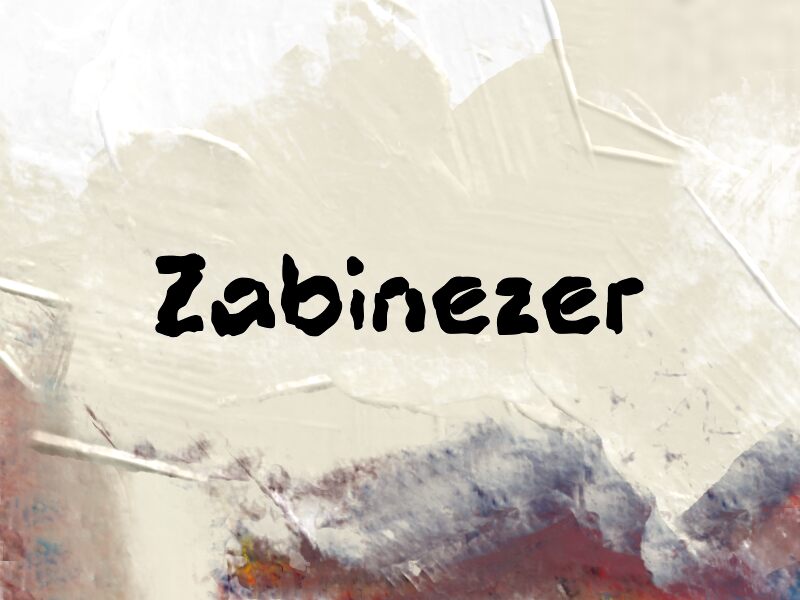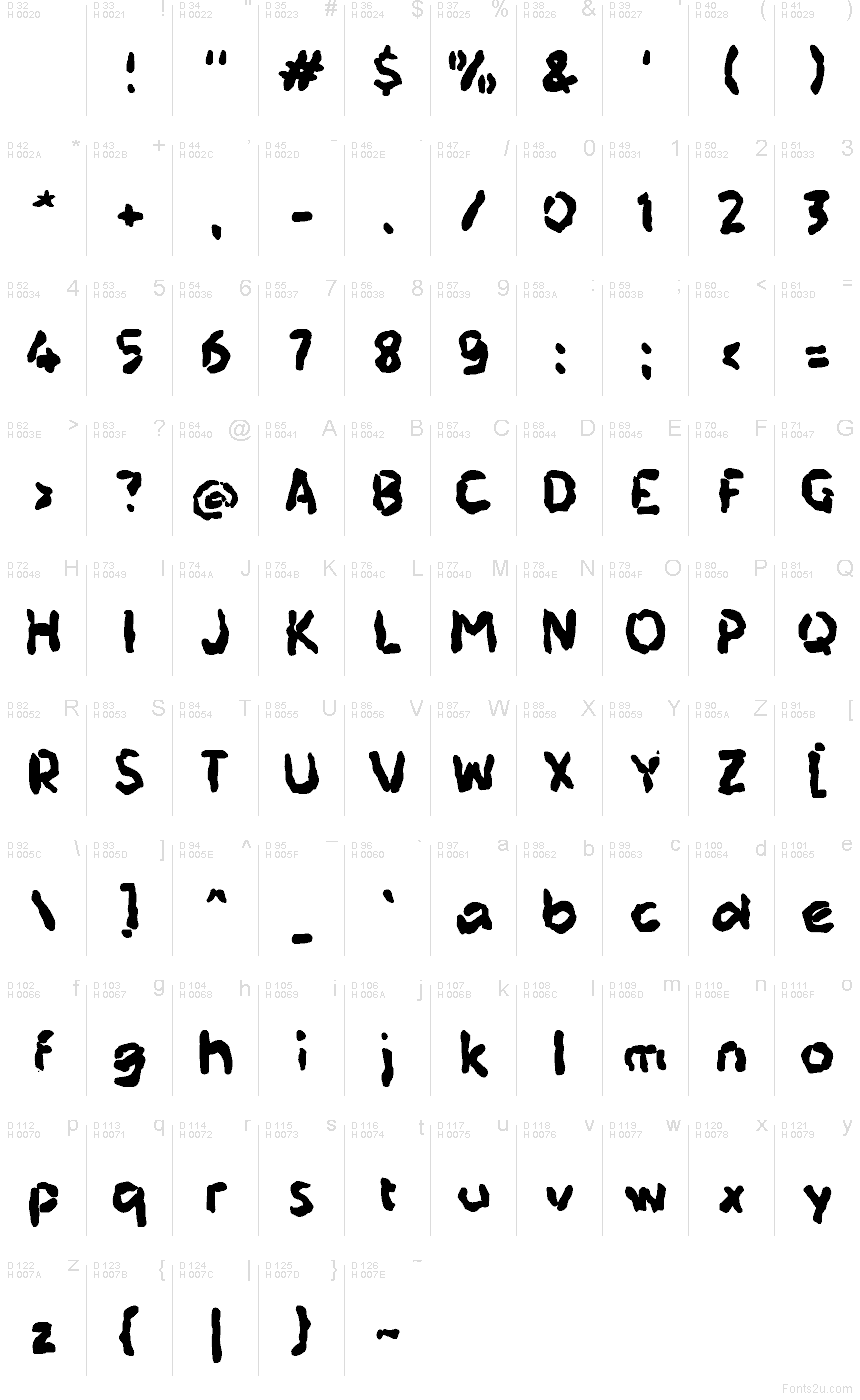
Zabinezer
Zabinezer font by wepfont.com is a free display typeface that looks like it’s been painted in thick, gooey ink. Its blobby curves and soft, irregular edges give every word a drippy, almost creature-like presence, as if the letters are slowly oozing across the page. The shapes stay bold and readable, but they never feel stiff or mechanical—there’s always a wobble, a swell, a little surge of personality.
Using Zabinezer, you can push eerie, playful, or messy themes without needing extra graphics. This free font shines on Halloween posters, spooky kids’ book covers, horror movie titles, slime-themed party invites, game logos, and YouTube thumbnails that need a creepy twist. For balance, pair Zabinezer with a clean, narrow sans serif in small text and let this inky alphabet stay big and loud in your headlines.